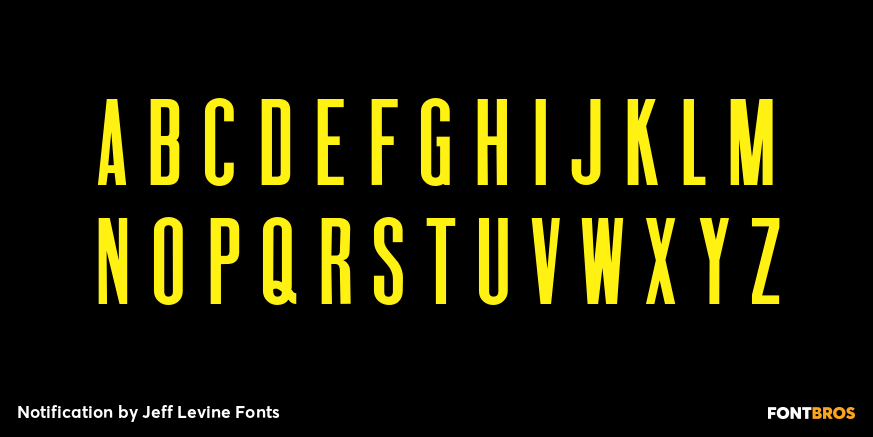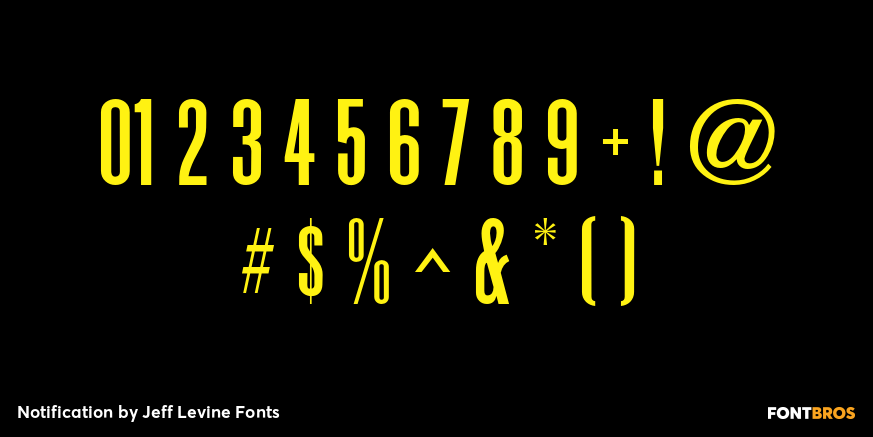
Notification
Notification JNL is another condensed sanserif design loosely based on one of the many variations of wood type headline fonts.
Notification by Jeff Levine Fonts